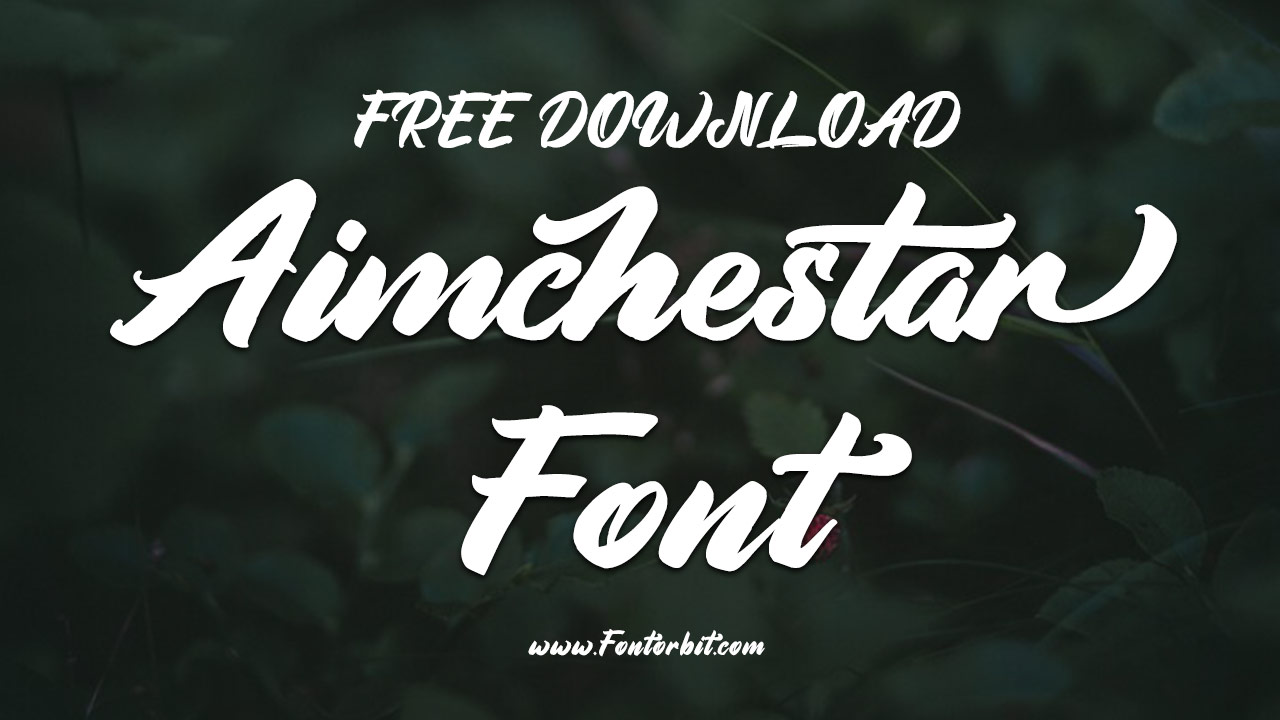
The Aimchestar Font, designed by Ferry Hadriyan and published by FHFont, features a hand-lettered brush style that adds elegance and creativity to your projects. This script typeface is ideal for various applications, from wedding invitations to branding.
The Aimchestar Font Family
The Aimchestar Font is available in OTF, TTF, and WOFF formats, ensuring compatibility with various devices and design software. Its unique brush script style and OpenType features make it perfect for enhancing the charm of your creative work.
- Weddings
- Events
- T-Shirts
- Badges
- Stickers
The Aimchestar Font is perfect for projects that require a sophisticated and personal touch. Its hand-lettered style adds a unique flair to wedding invitations, branding, and other creative endeavors, making your designs stand out.
The Aimchestar Font brings an elegant, hand-lettered brush style to your creative projects. Free for personal use, it provides a refined and artistic touch to designs such as wedding invitations, logos, and more. This font is an excellent choice for adding sophistication and personality to your work.
1.What is the Aimchestar Font?
Aimchestar is a script typeface with a hand-lettered brush style, offering elegance and creativity for various design projects.
2.Who designed the Aimchestar Font?
Ferry Hadriyan designed the Aimchestar Font, which is published by FHFont.
3.What are the key features of the Aimchestar Font?
Features include a hand-lettered brush style, OpenType support, and availability in OTF, TTF, and WOFF formats for versatile use.
4.How to use Aimchestar Font in branding?
Use Aimchestar for elegant and personalized branding elements like logos and business cards to enhance visual appeal with its refined script style.